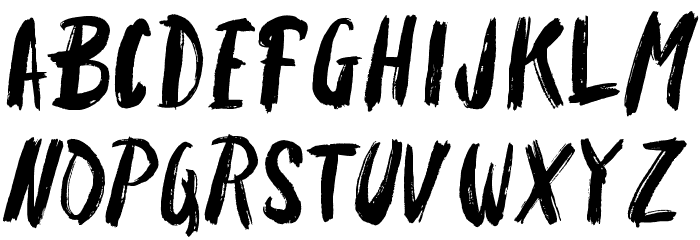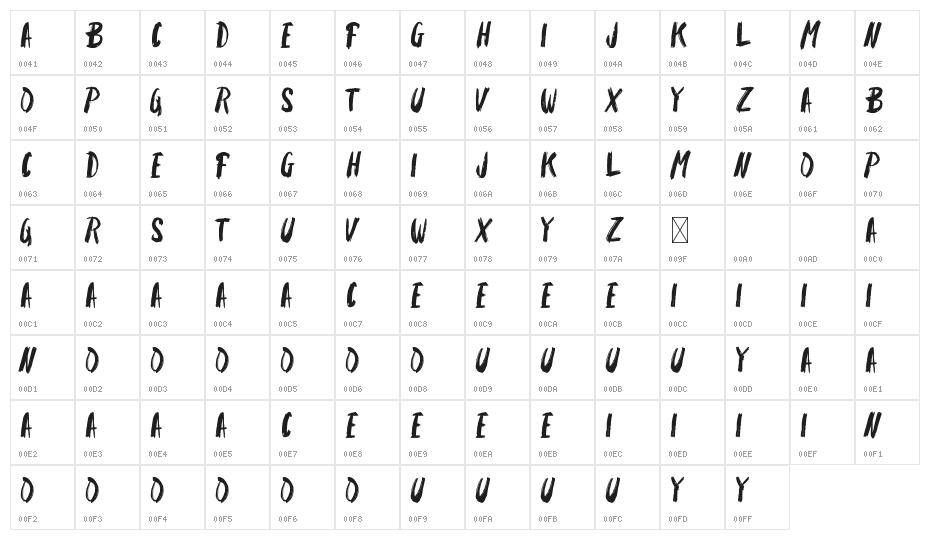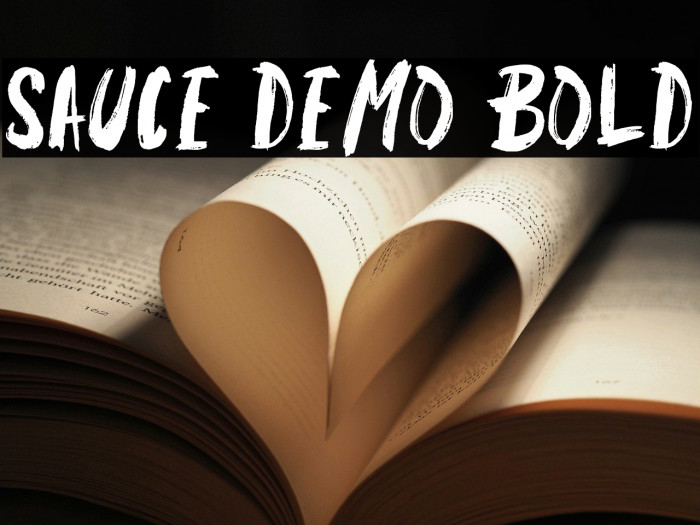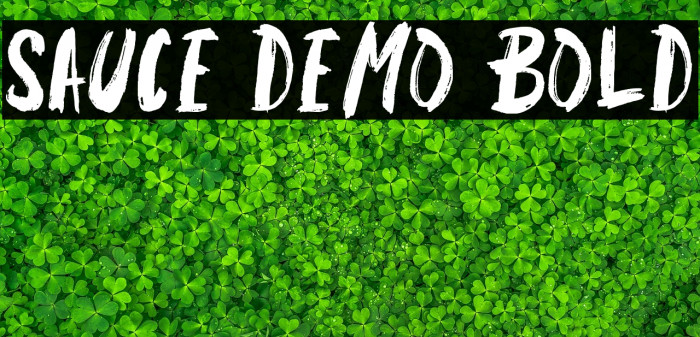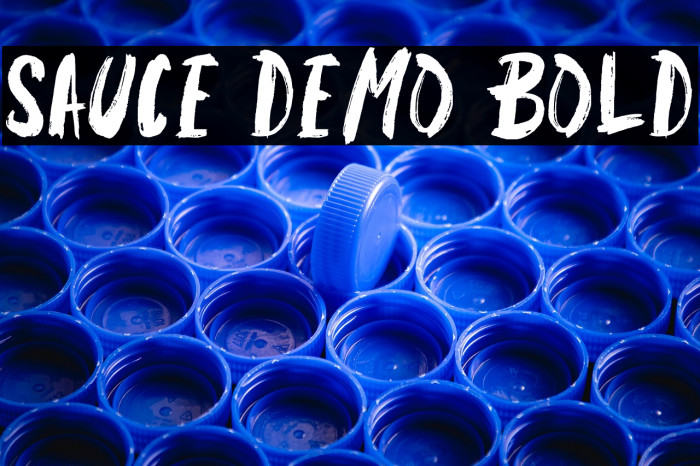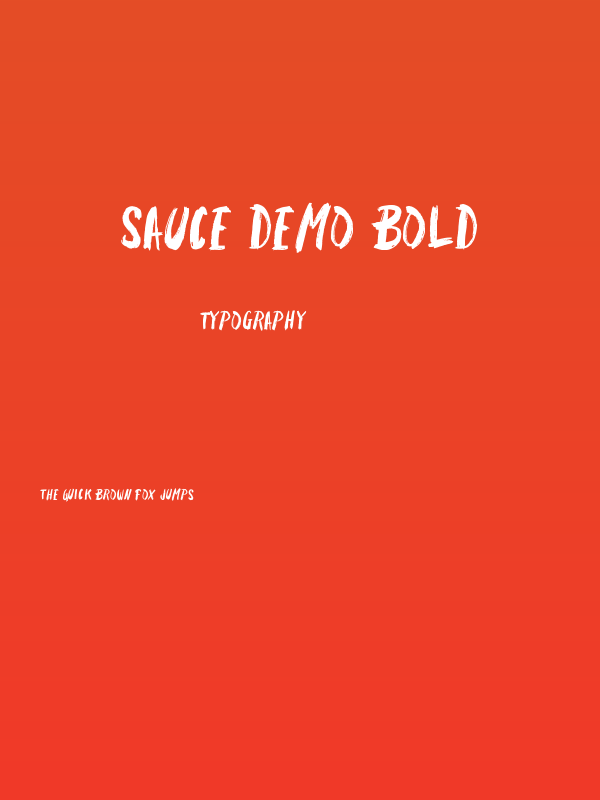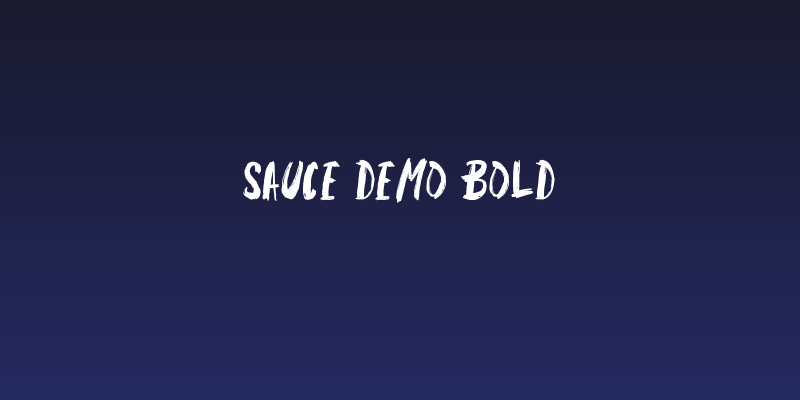
SAUCE DEMO Bold Font
SAUCE DEMO Bold Description
This font features a bold, expressive style with brush-like strokes that convey a sense of energy and dynamism. The characters are slightly slanted, adding to the impression of movement and fluidity. Each letter is crafted with varying stroke thickness, creating a hand-painted appearance that is both artistic and impactful. The uppercase letters dominate the design, with a slightly irregular form that enhances the handcrafted feel. This font is perfect for projects that require a bold statement, combining a modern aesthetic with a touch of artistic flair.
| Proposed Projects | Ideal for posters, branding, packaging, and any design needing a bold, artistic touch. |